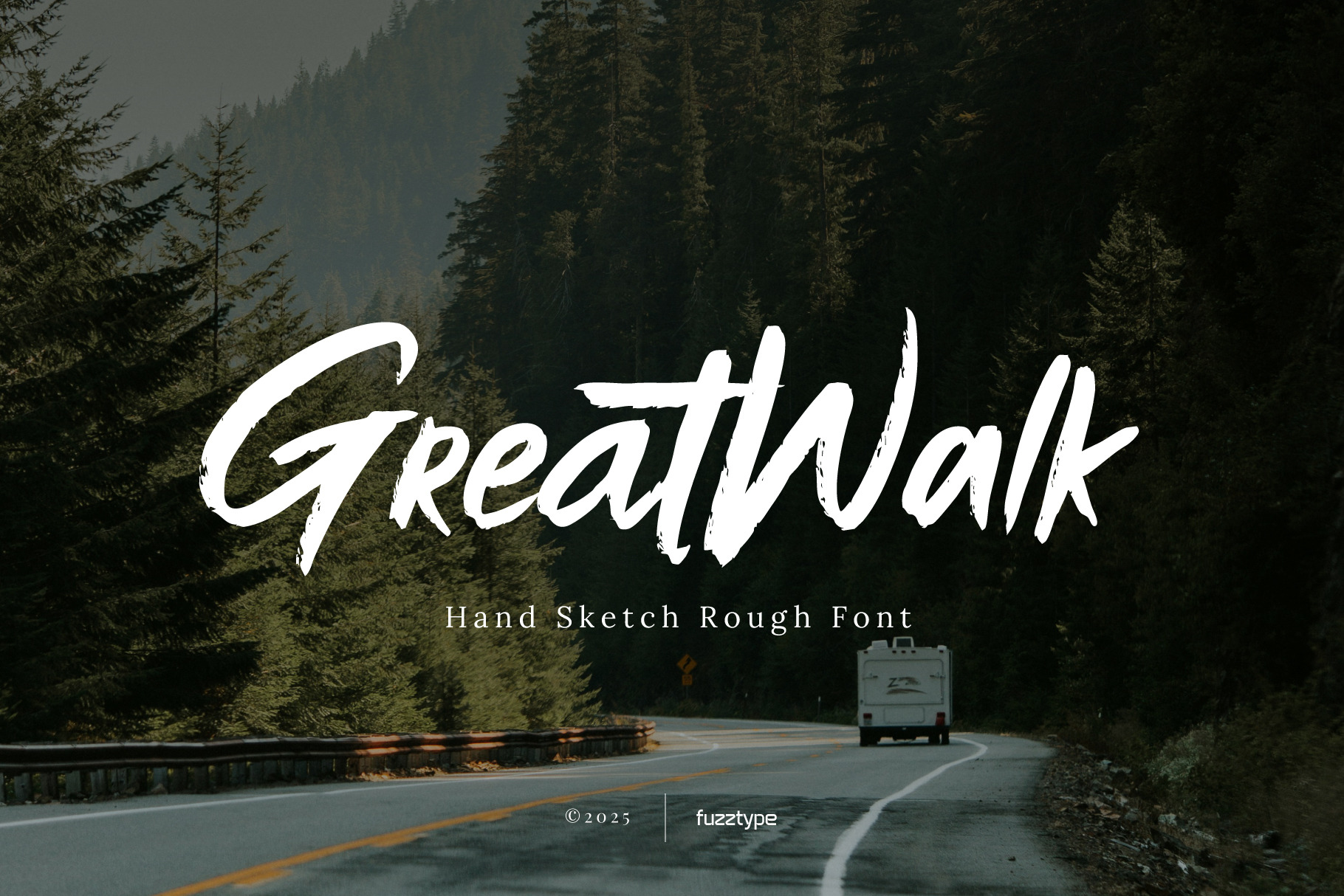
Greatwalk - Hand Sketch Rough Font
Greatwalk is a bold and expressive hand-drawn script font with a raw, textured finish that brings your designs to life. Inspired by the rugged charm of outdoor adventures and handwritten travel journals, this font combines energy and authenticity in every stroke.
With its rough brush detailing and natural flow, Greatwalk is perfect for:
- Adventure branding
- Poster designs
- Social media graphics
- Merchandise
- Editorial layouts
- Outdoor or lifestyle-themed visuals
Whether you’re creating bold headlines or standout logos, Greatwalk delivers a handcrafted personality that feels alive and unpolished in the best way. Let your words walk wild.